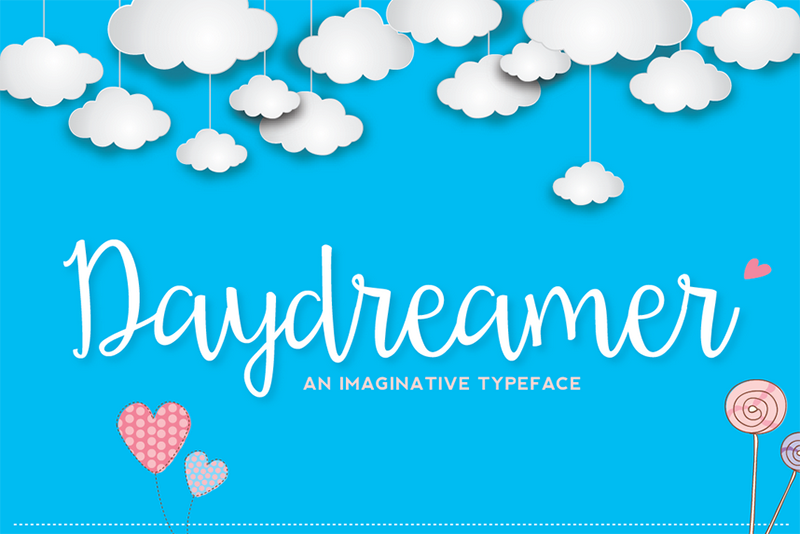
Cute free Script fonts
Below are 6 Cute free Script fonts, that are perfect for your summer designs.
Daydreamer
Including over 120 different hand drawn characters for a range of languages and dialects.
Fox in the snow
KG Manhattan Script
Elegant feminine cursive font.
LillyBelle
Type | (bar) after any lowercase letter to add a swirl at the end of a word.
KG The Fighter
This script font is neat and legible and widely spaced.
Sweet Pea script font